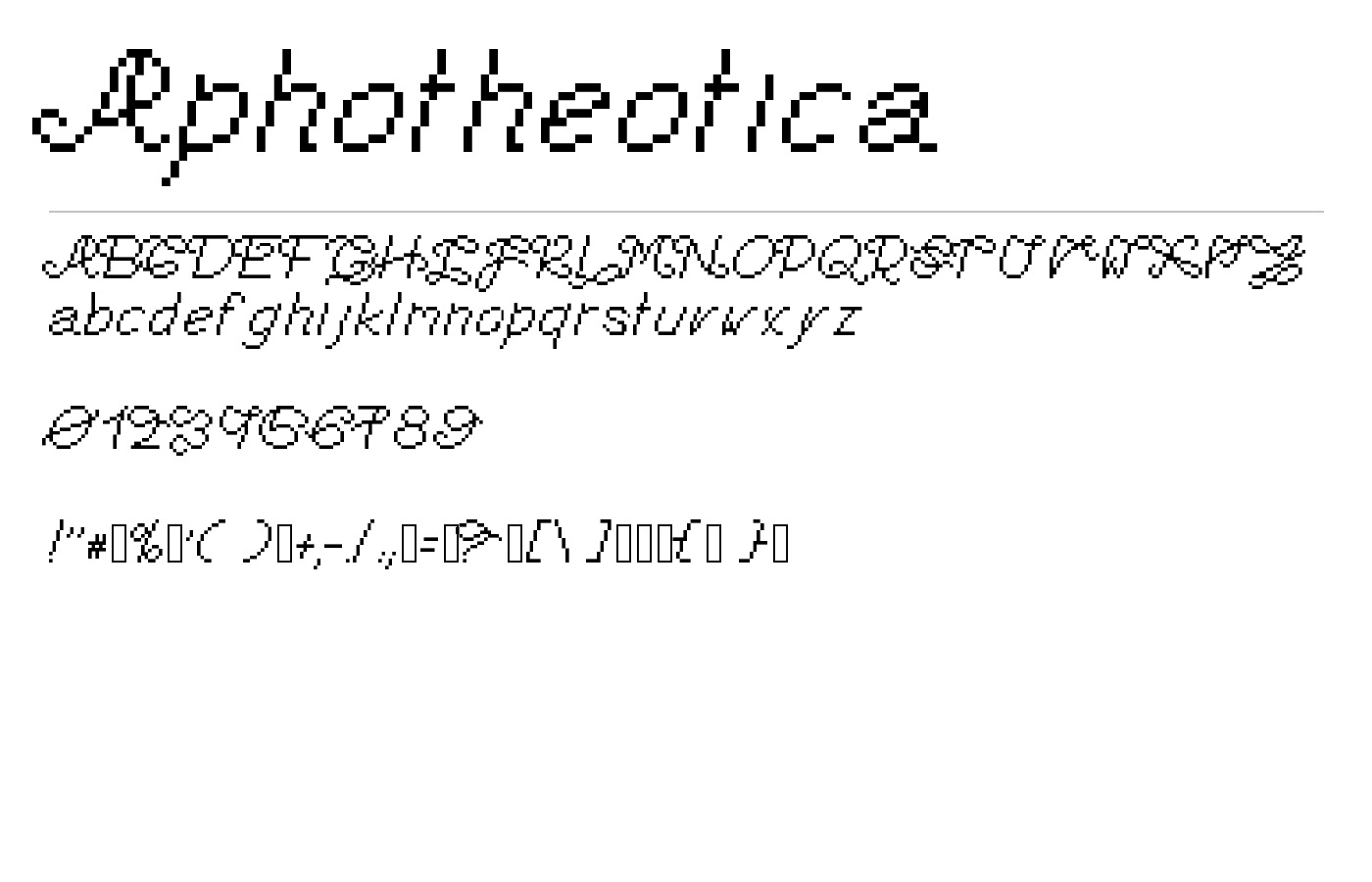
Aphotheotica is a delicate and elegant script font with a light weight and flowing, calligraphic strokes that give it an airy and refined feel. Its slender letterforms and smooth curves make it perfect for uses that require a touch of sophistication and grace, such as wedding invitations, fashion branding, or elegant editorial titles. This font excels in creating a romantic and artistic atmosphere, especially in headline or display contexts where its intricate style can shine.
Aphotheotica Font
About Aphotheotica Font